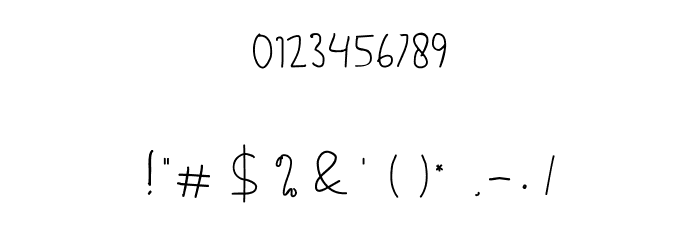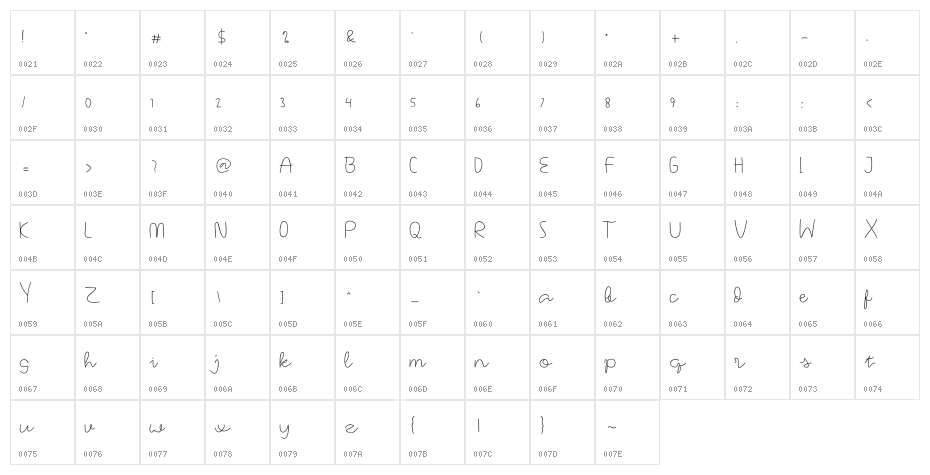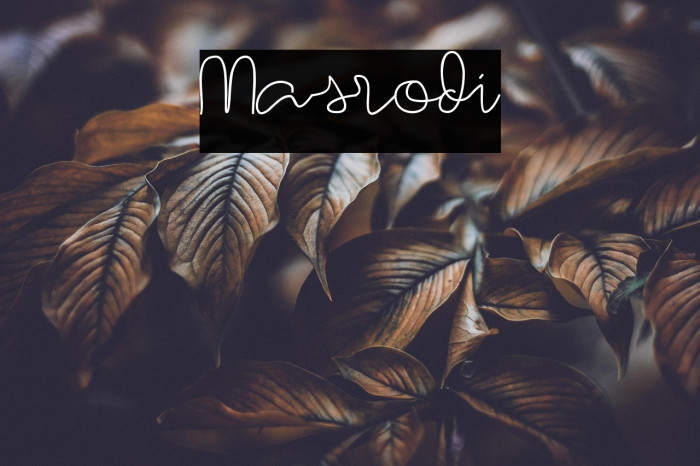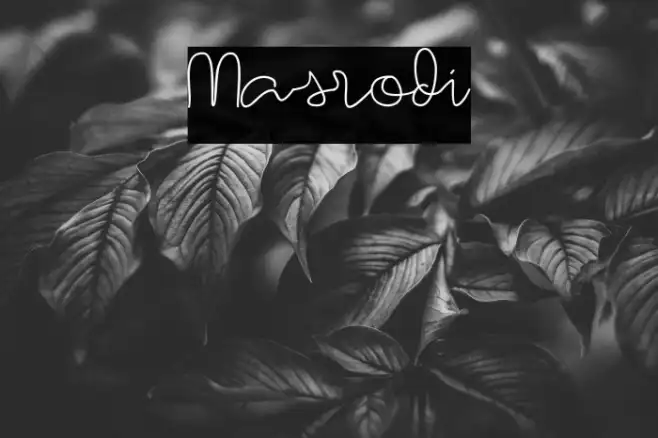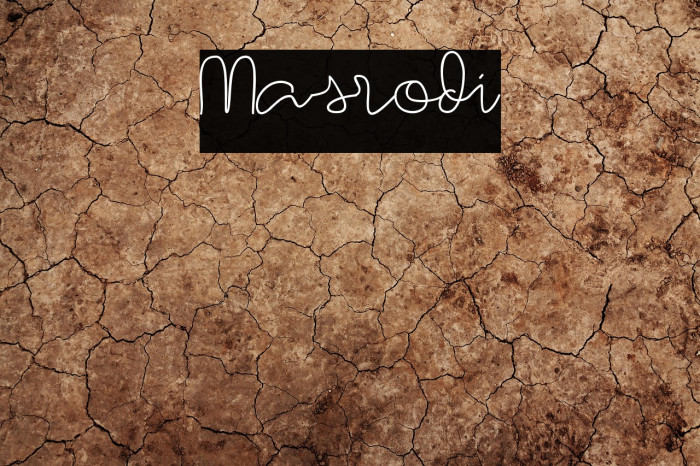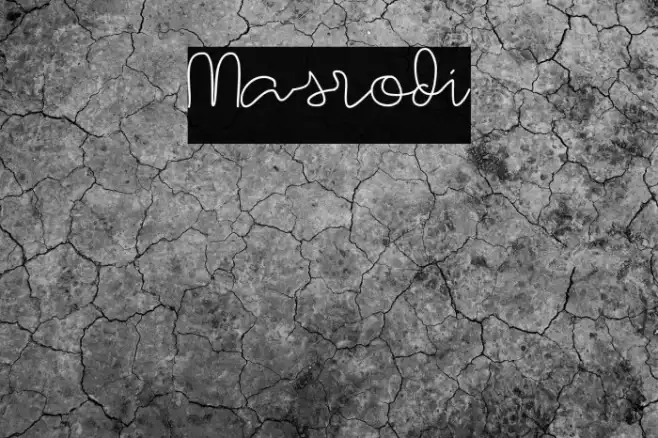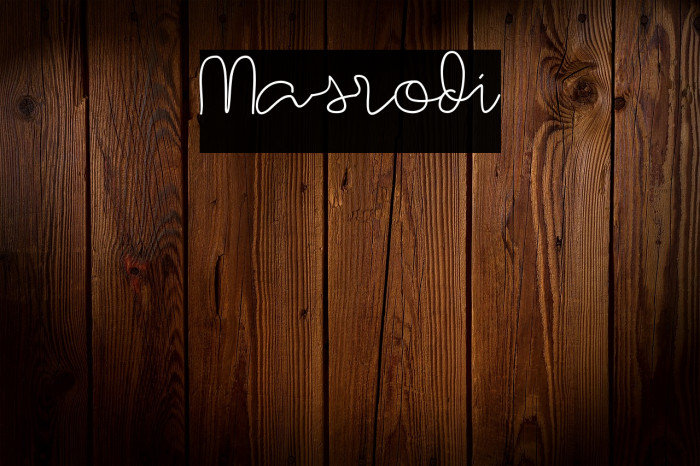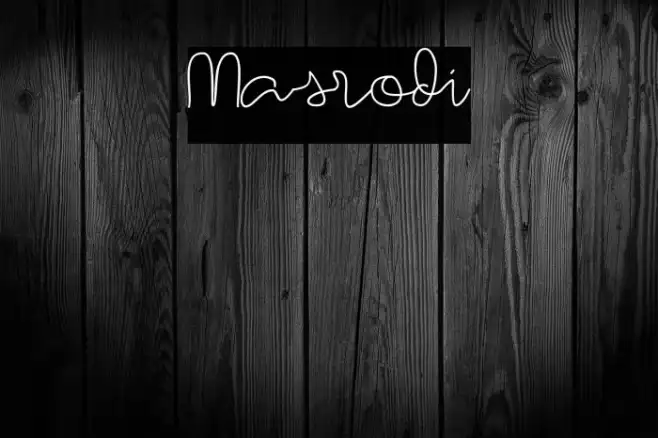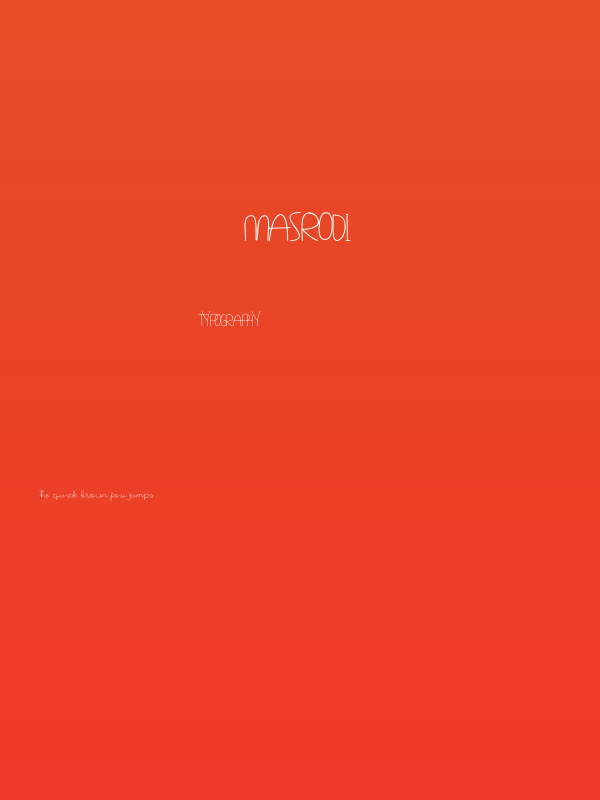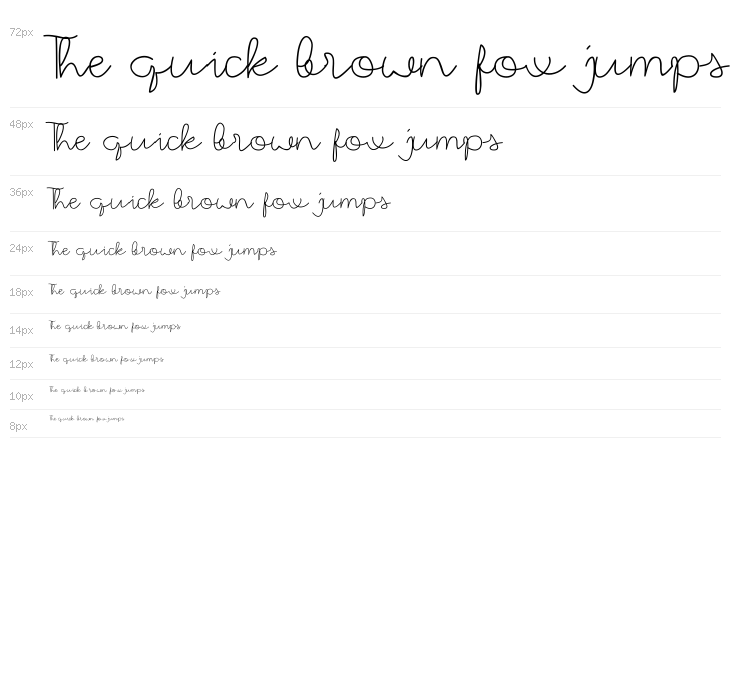
Masrodi Font
Masrodi Description
This font features a playful and whimsical handwritten style, characterized by its thin, flowing lines and a casual, informal appearance. The uppercase letters are tall and slightly narrow, with a consistent stroke width that gives them a clean and modern look. The lowercase letters are more fluid, with some letters connecting in a cursive manner, adding to the font's charm and personality. The numerals are simple and match the overall style, maintaining the same thin stroke. Special characters are included, each designed to complement the font's overall aesthetic. This font is perfect for projects that require a touch of elegance and creativity, such as invitations, greeting cards, or personal branding.
| Overall Style | Casual, Whimsical |
| Proposed Projects | Ideal for invitations, greeting cards, personal branding, and creative projects. |